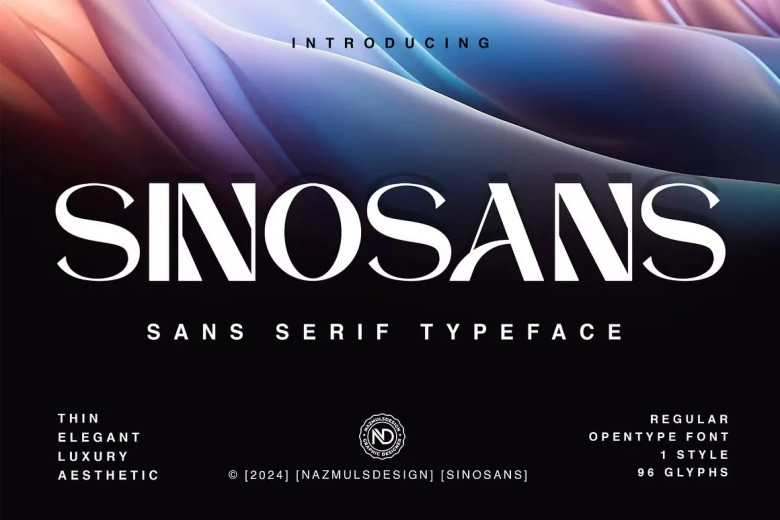
Sinosans Font
Sinosans is an elegant yet contemporary typeface that blends contemporary aesthetics with classic sophistication. Created to grab and retain attention across various designs, Sinosans’ carefully balanced proportions and fine detail add an air of refinement to each letterform.
Sinosans Sans Serif Font